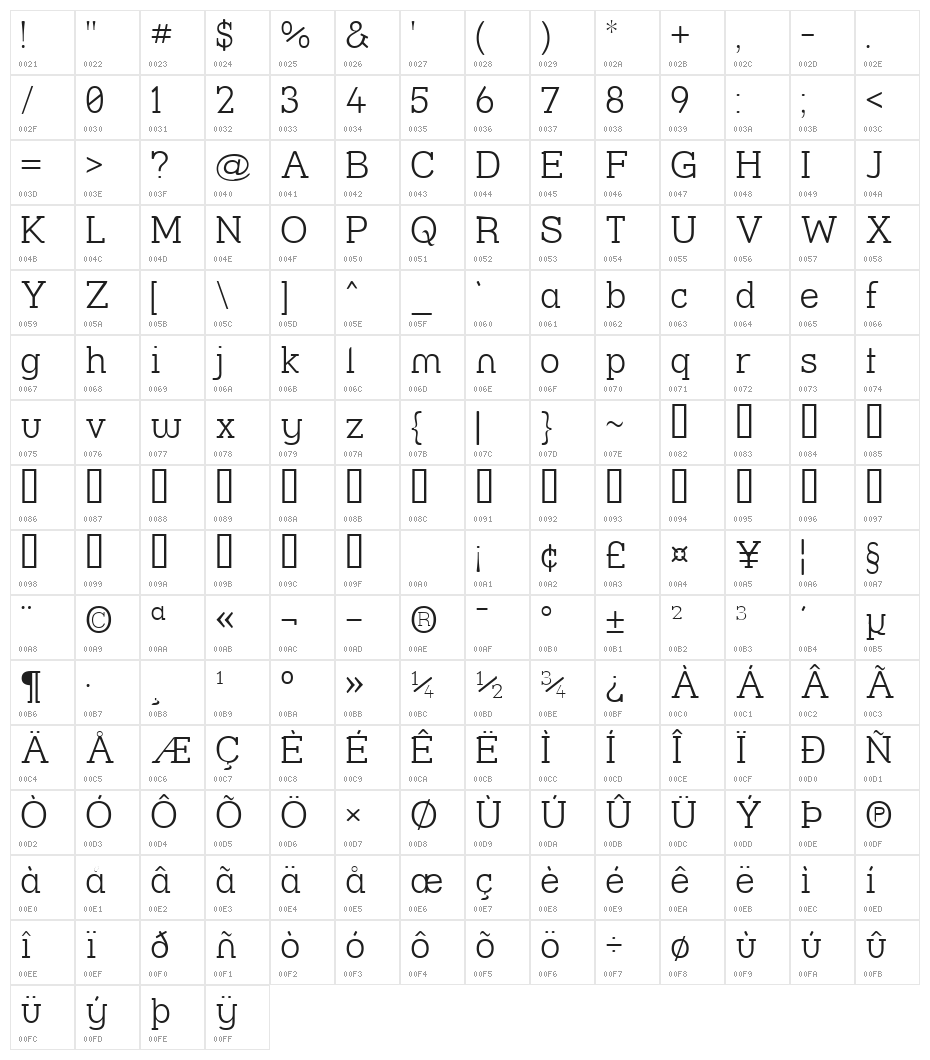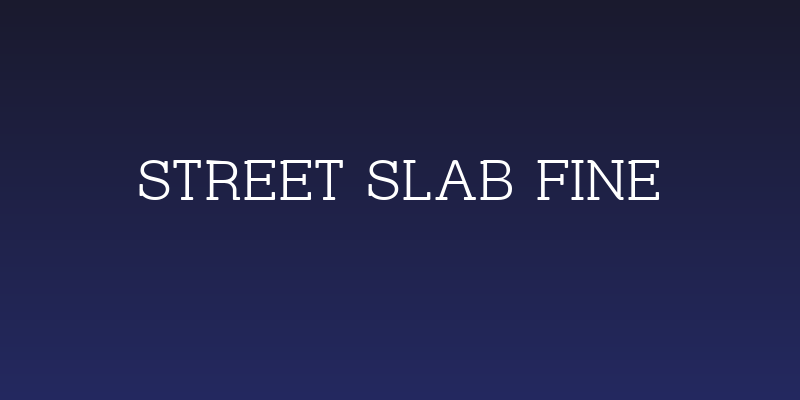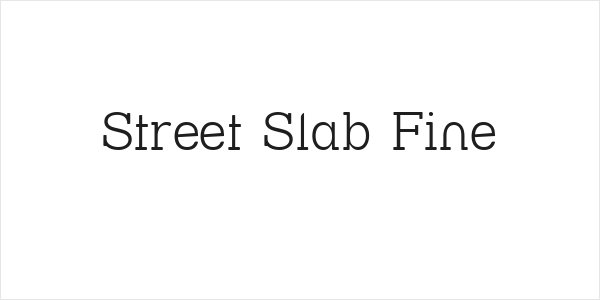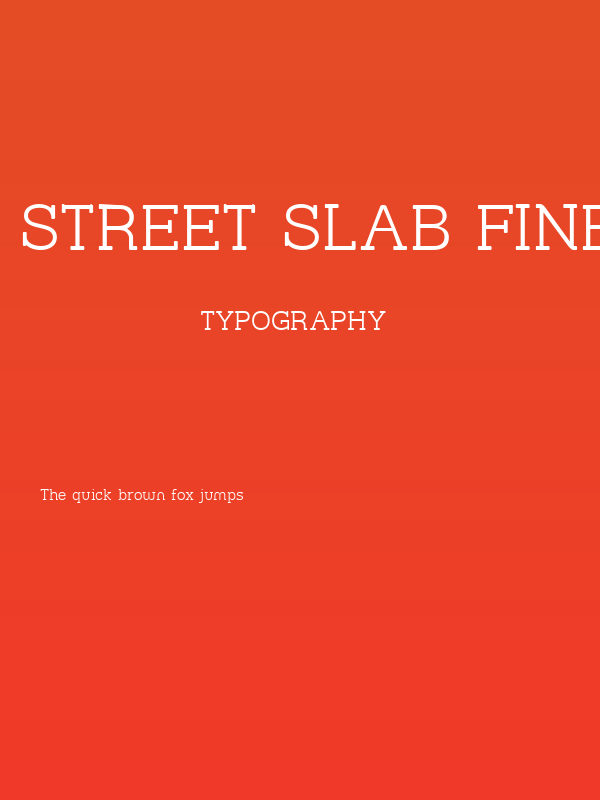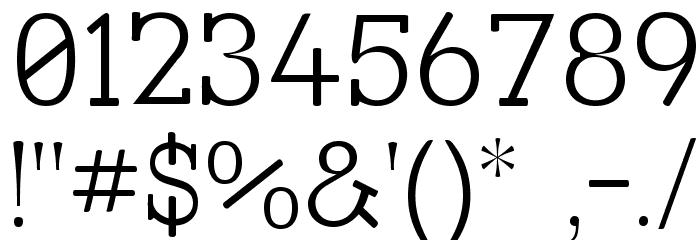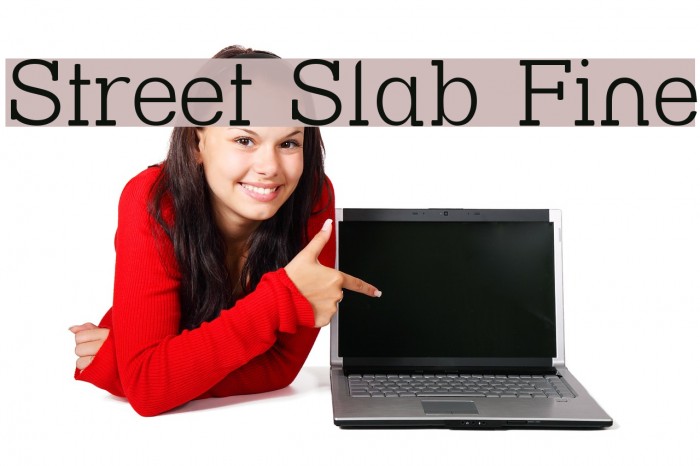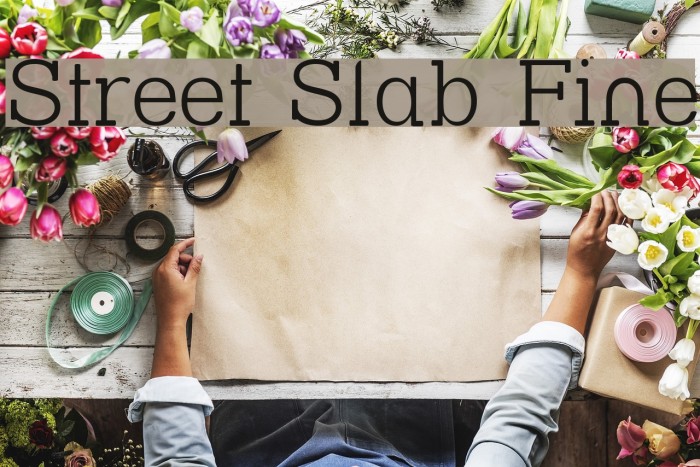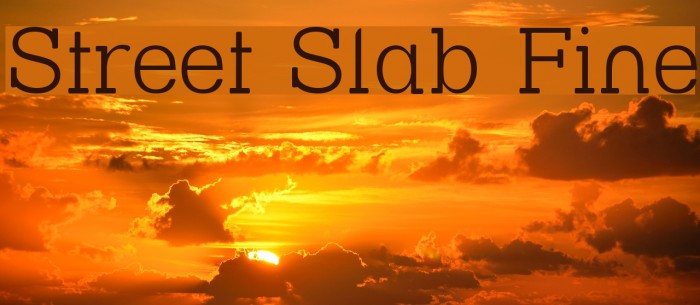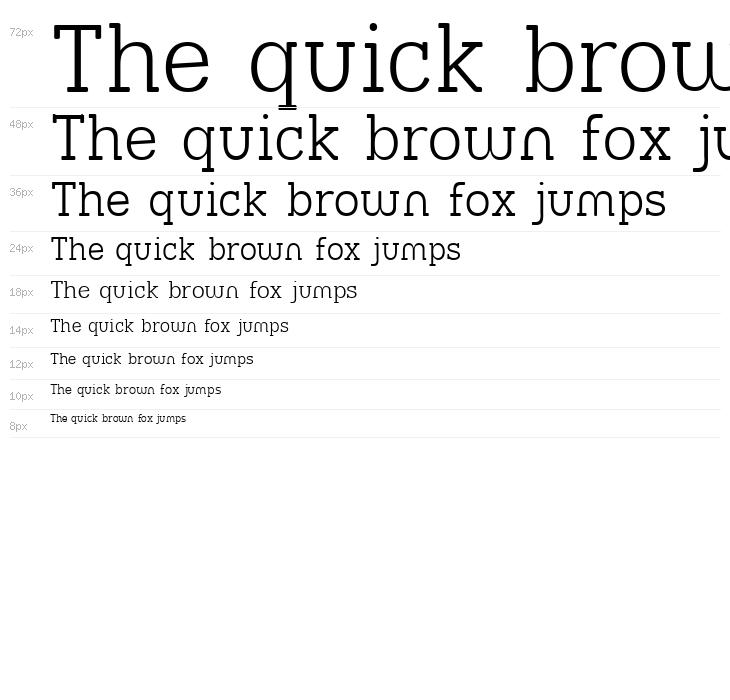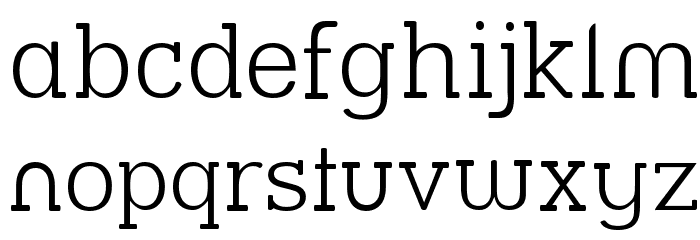
Street Slab Fine Font
This font features a clean and structured design with slab serifs that provide a solid and grounded appearance. The uppercase letters are bold and commanding, while the lowercase letters maintain a consistent and harmonious flow. The numerals are clear and easily distinguishable, making them suitable for various applications. The special characters are well-integrated, offering a cohesive look across all symbols. The overall design is modern yet timeless, making it versatile for both digital and print media.
| Use Case | Headlines, Body text, Logos |
| Proposed Projects | Ideal for branding, editorial design, signage, and web design projects. |